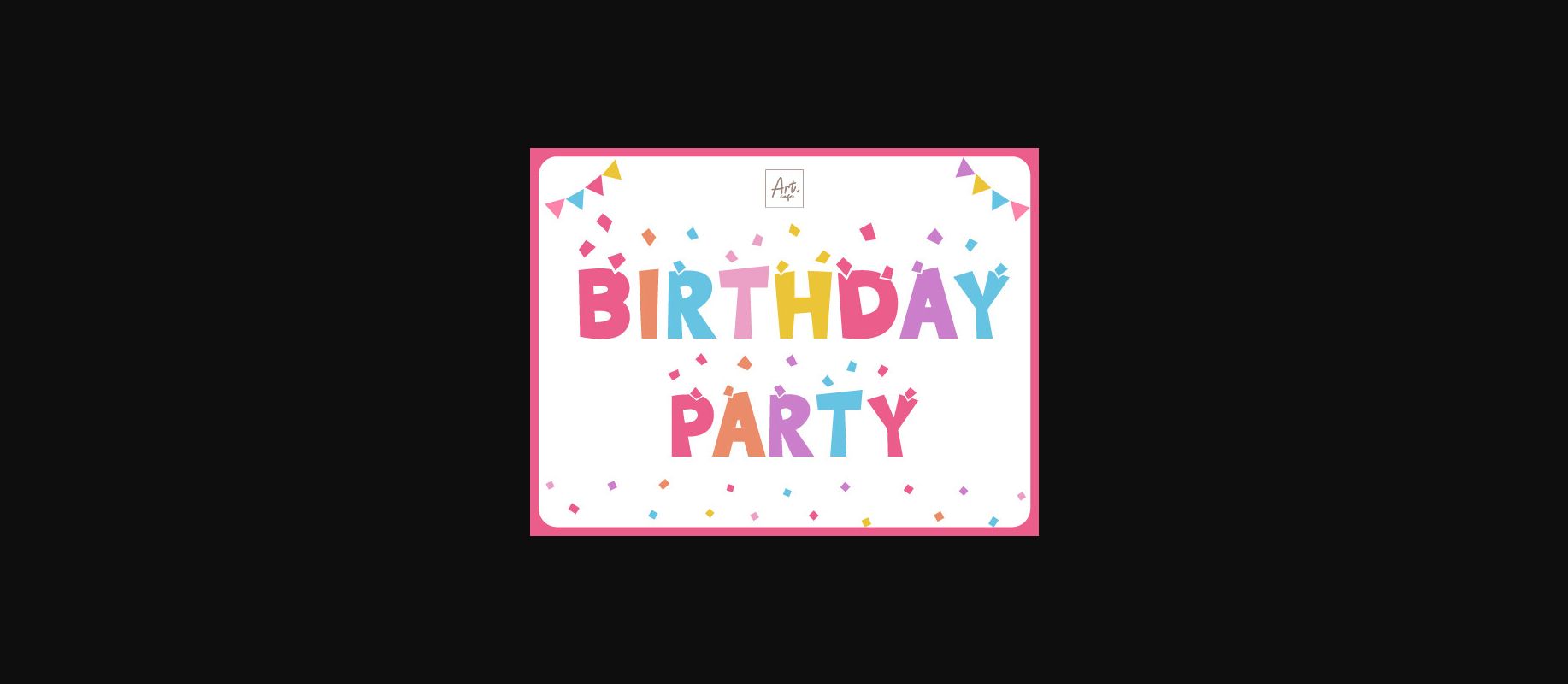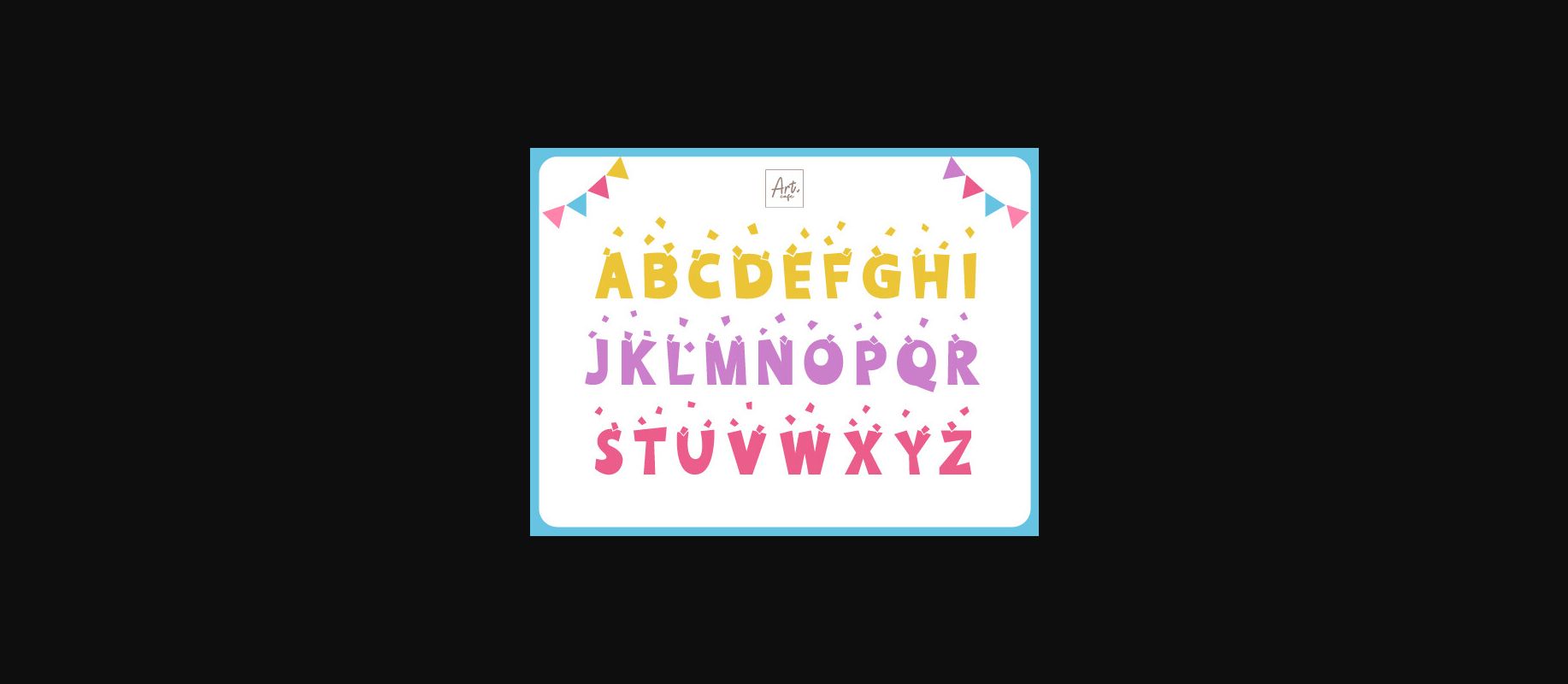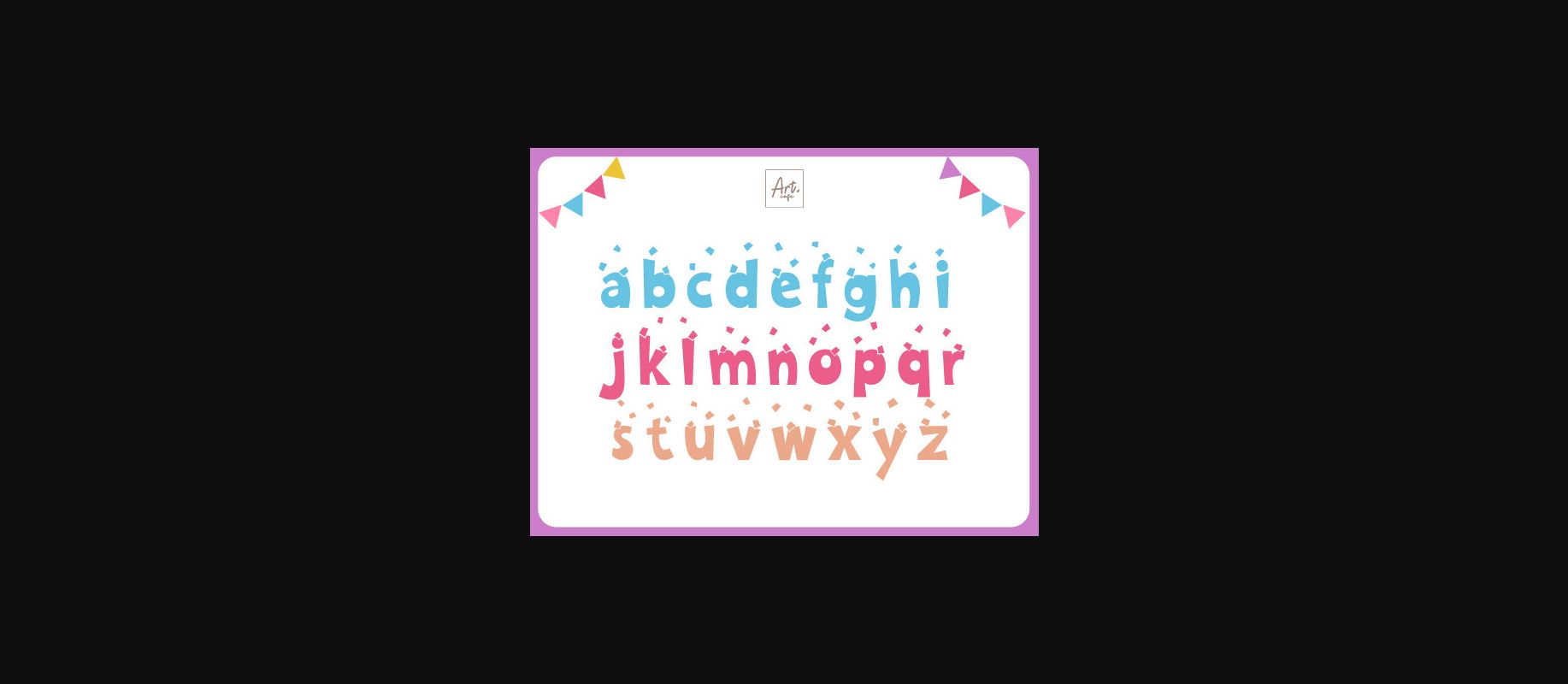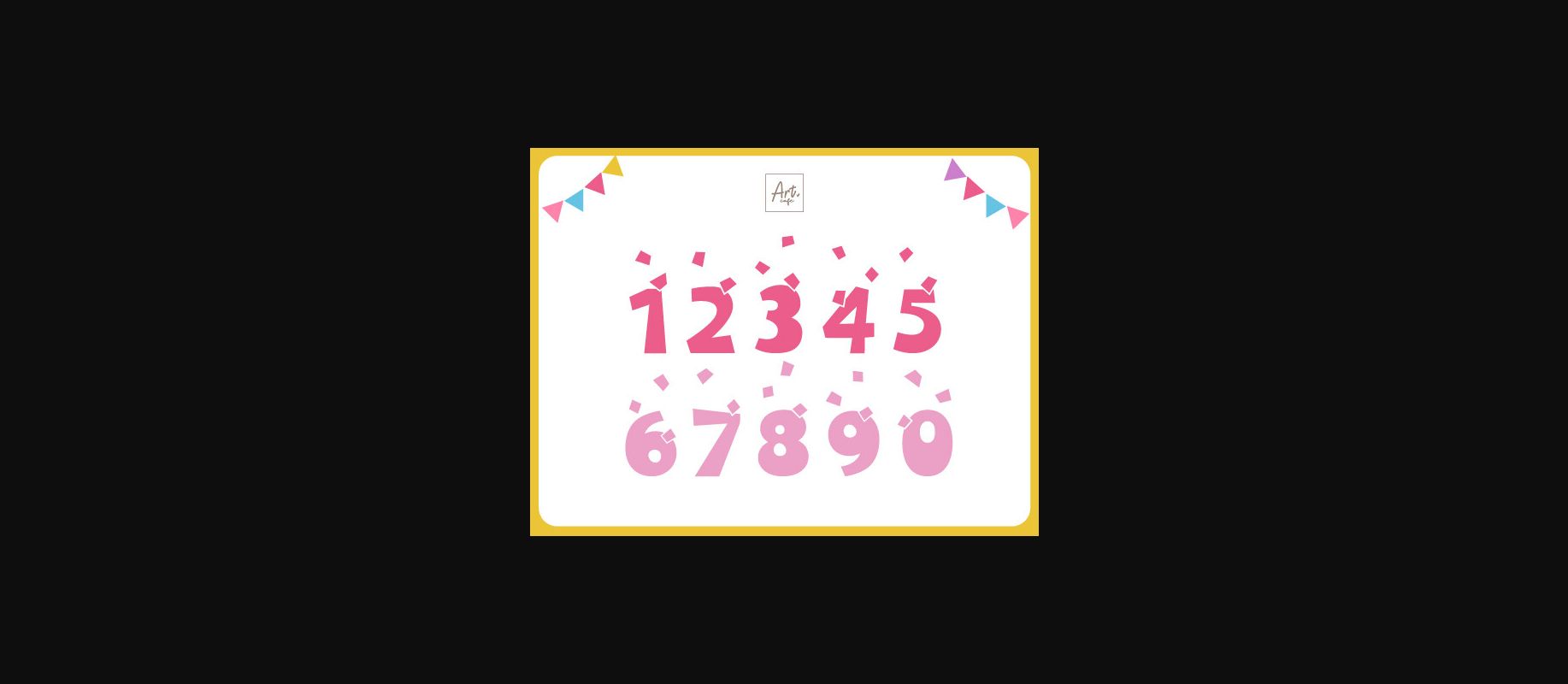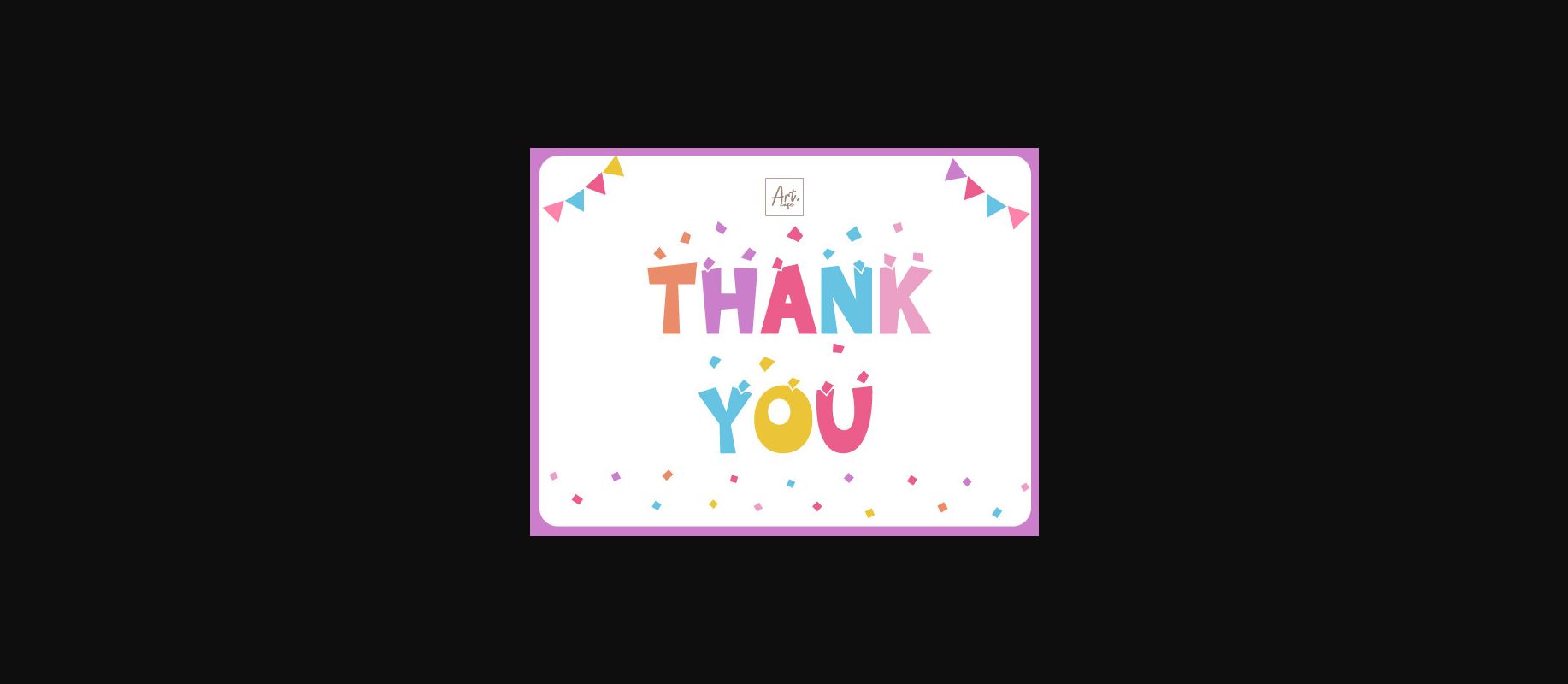
Birthday Party Font
About Birthday Party Font
Immerse yourself in the cheerful ambiance of celebration with the Birthday Party font. This vivacious design, speckled with festive confetti details, is ideally tailored for jubilant parties, delightful carnivals, or engrossing kids’ events. With its fun, youthfully spirited approach, Birthday Party is more than just a font, it’s an invitation to play and revel in joyous occasions. Experience the charming evocation of amusement and merriment, rightfully embedded within every curve and line of the Birthday Party font.